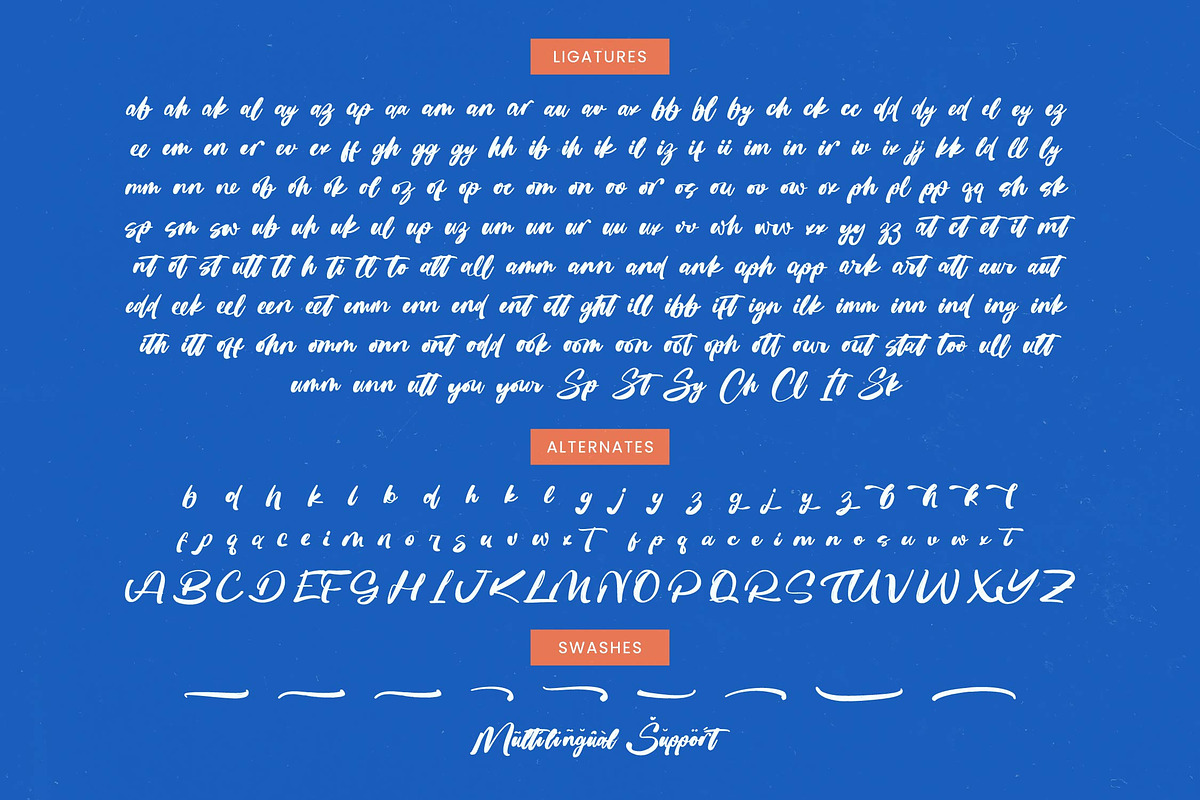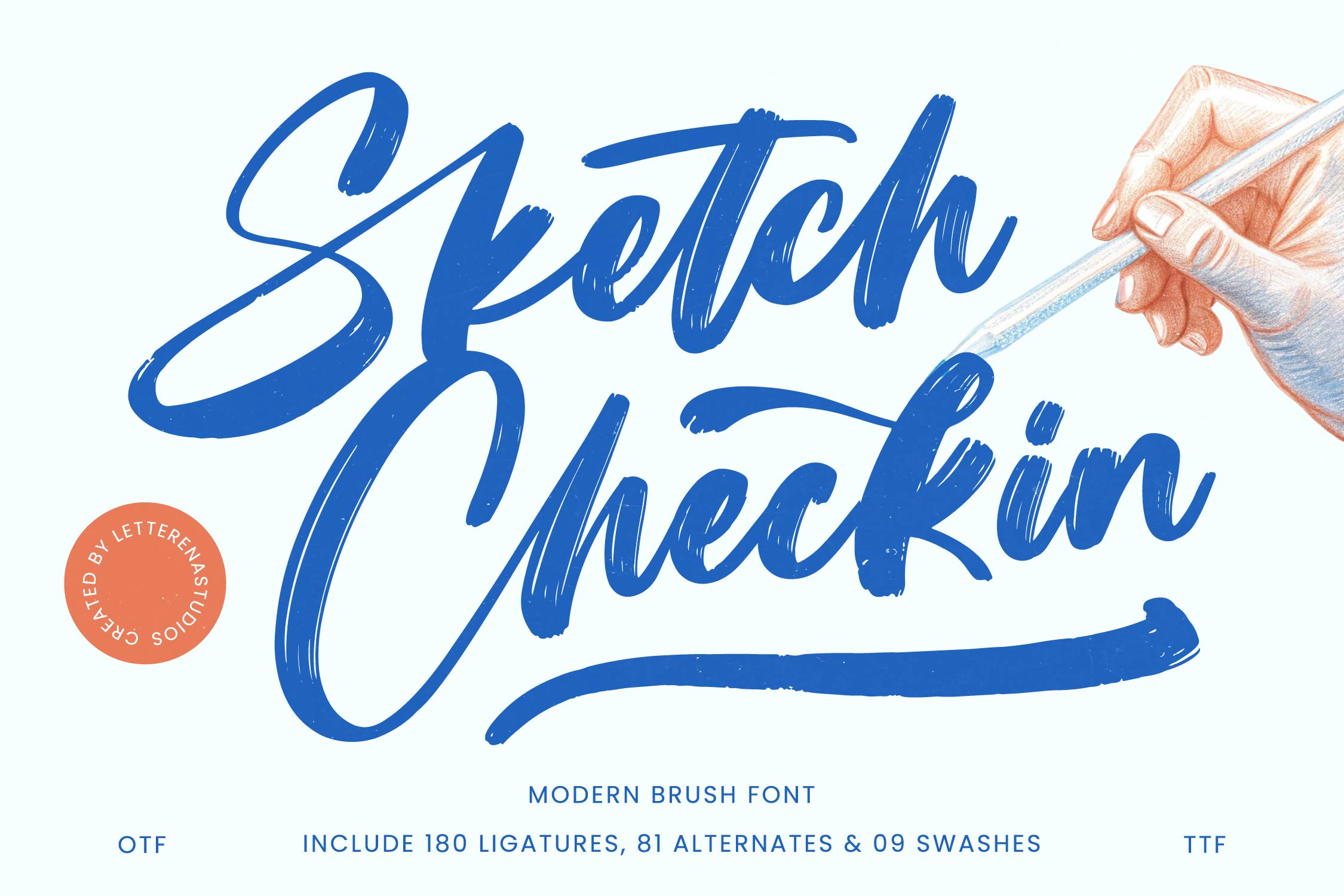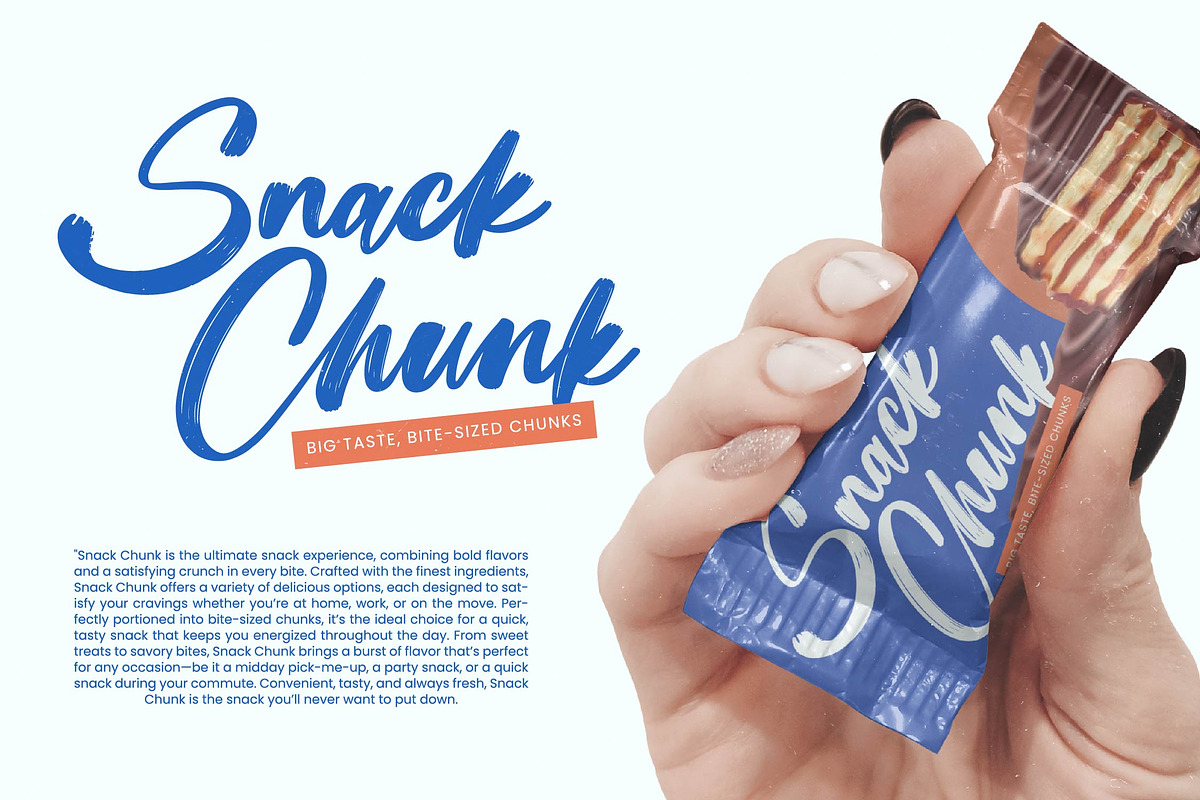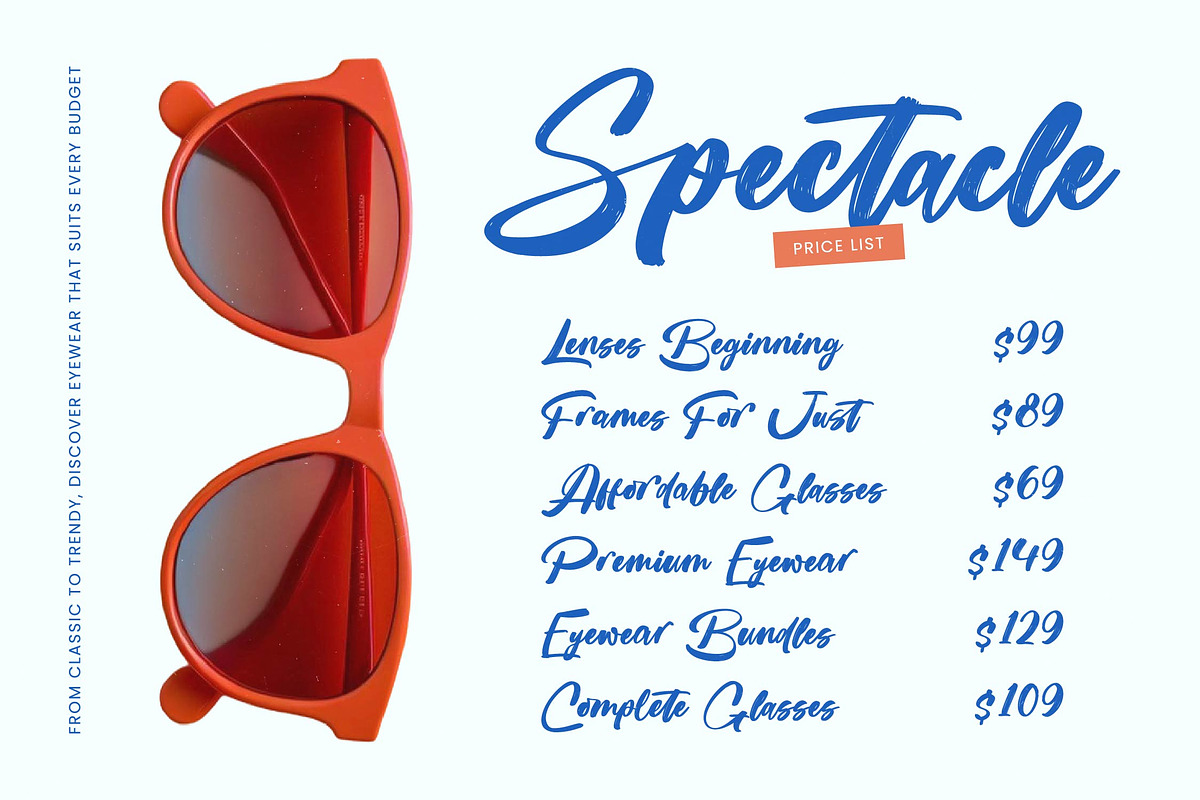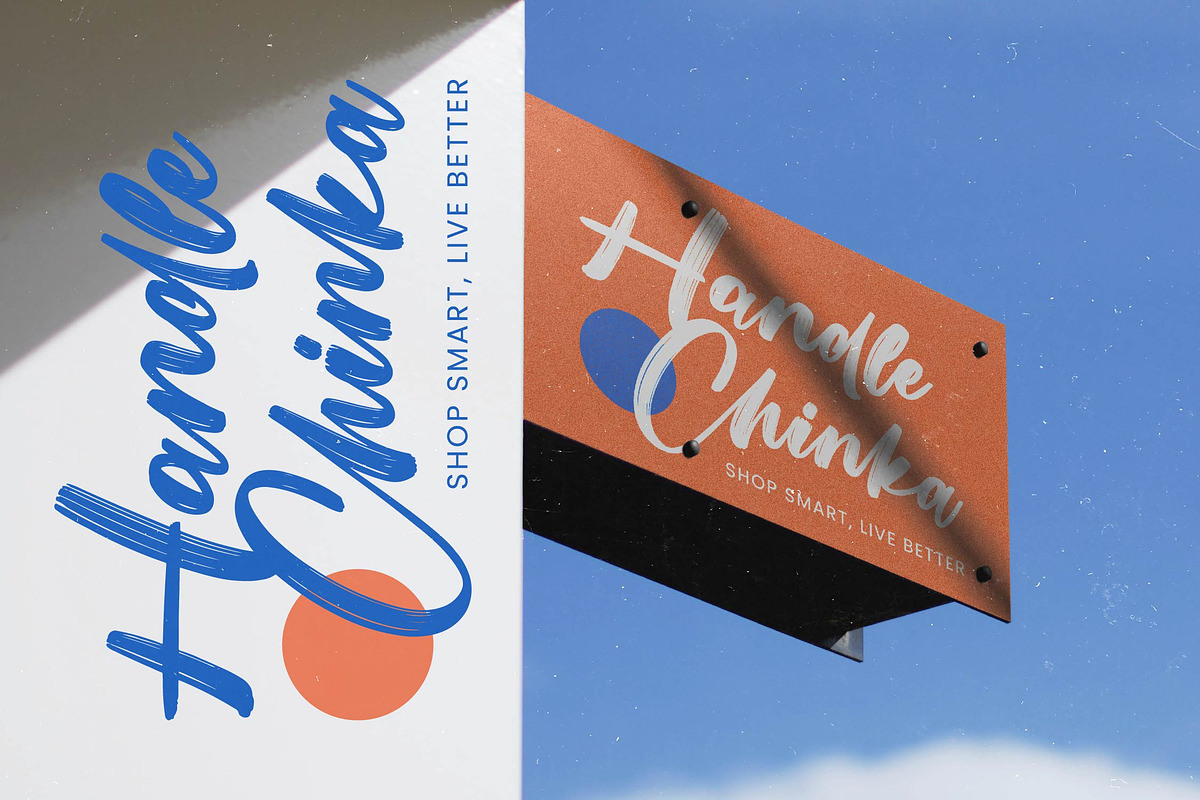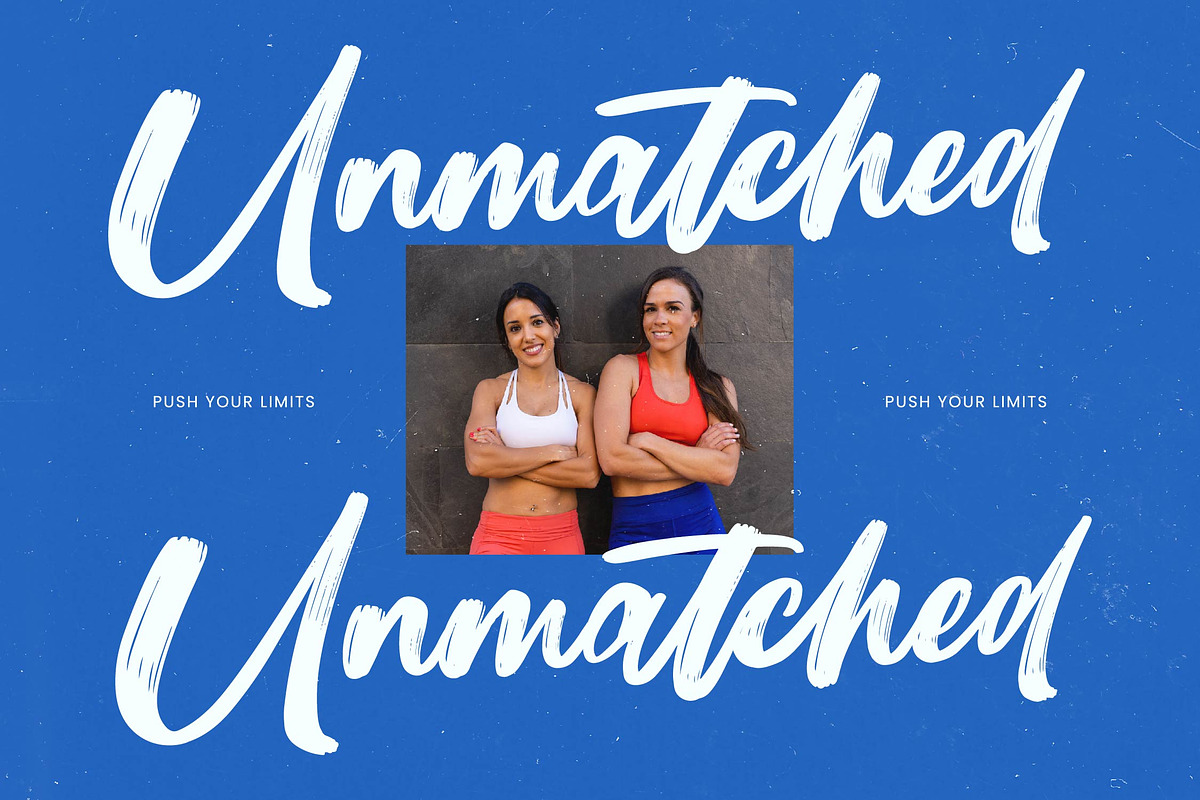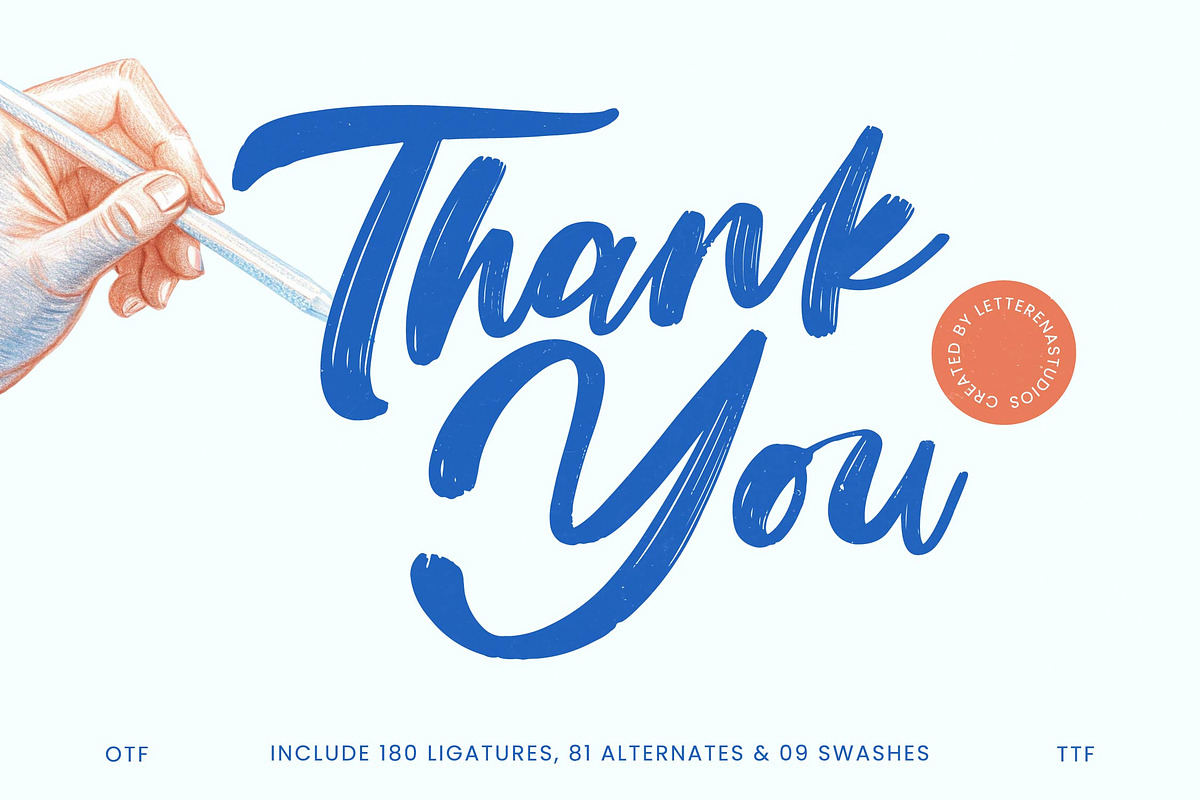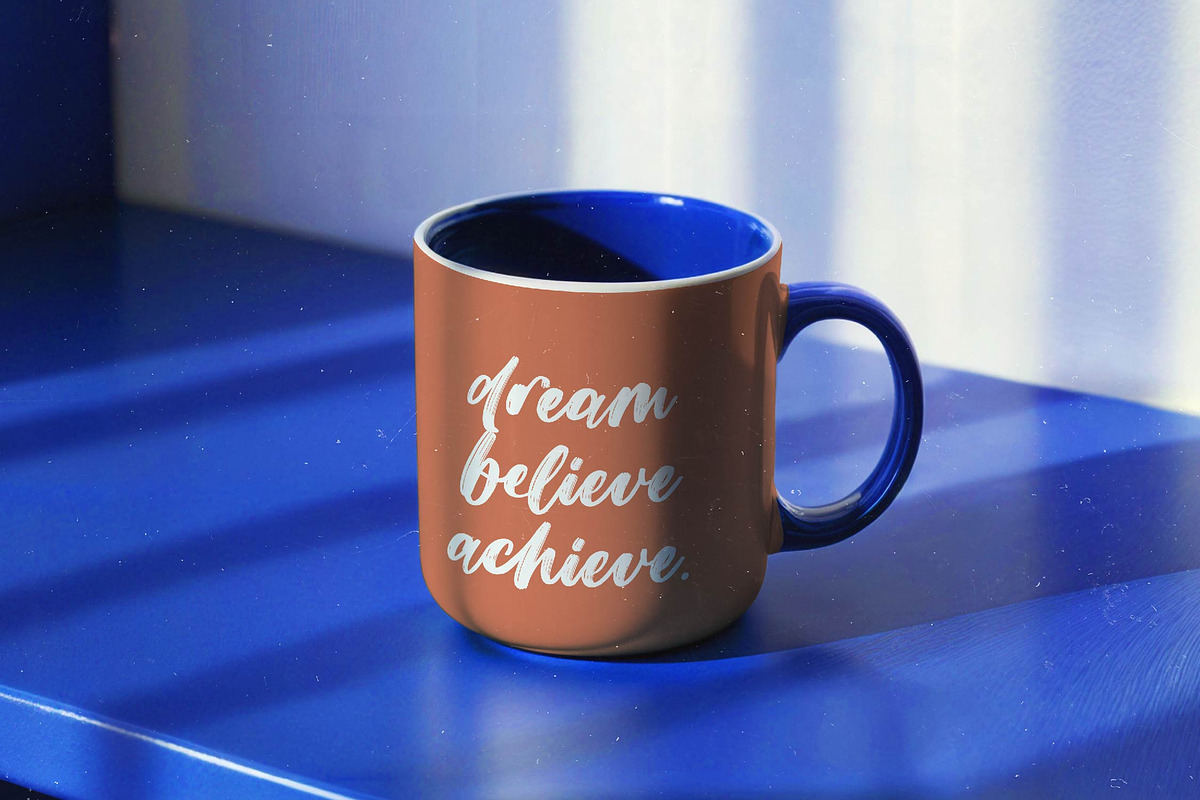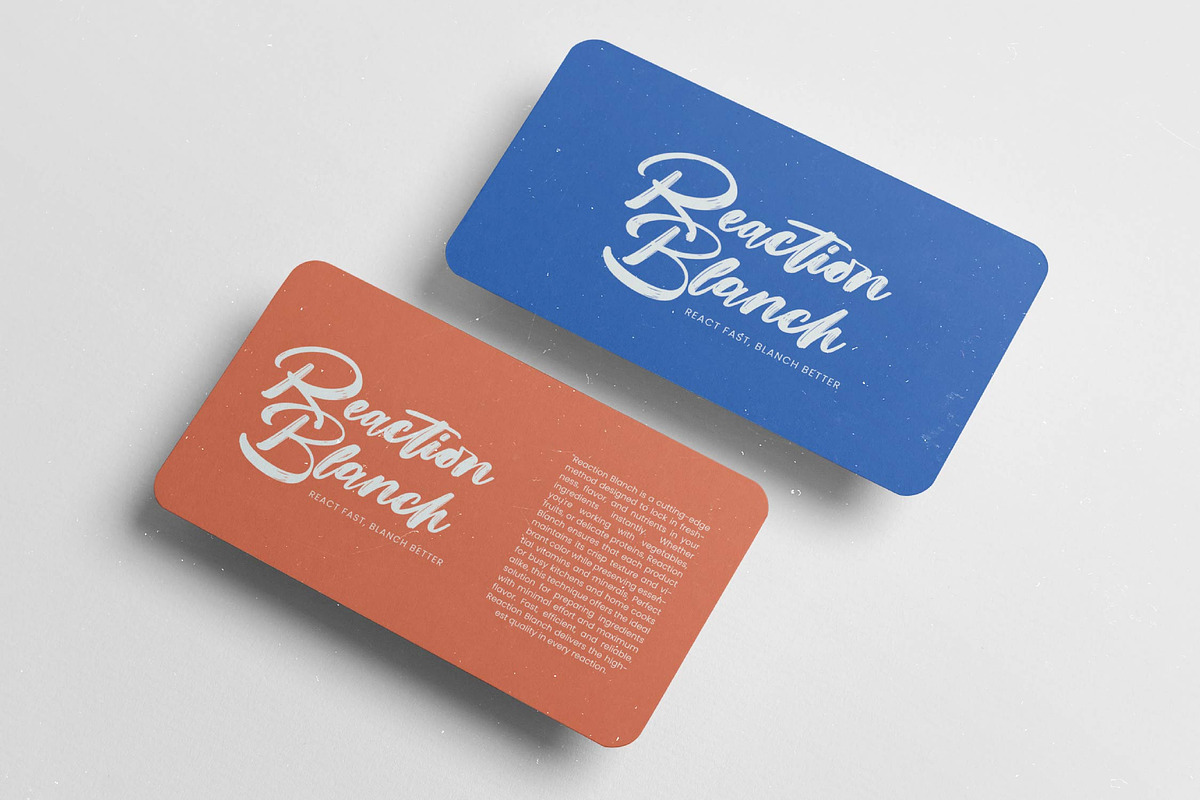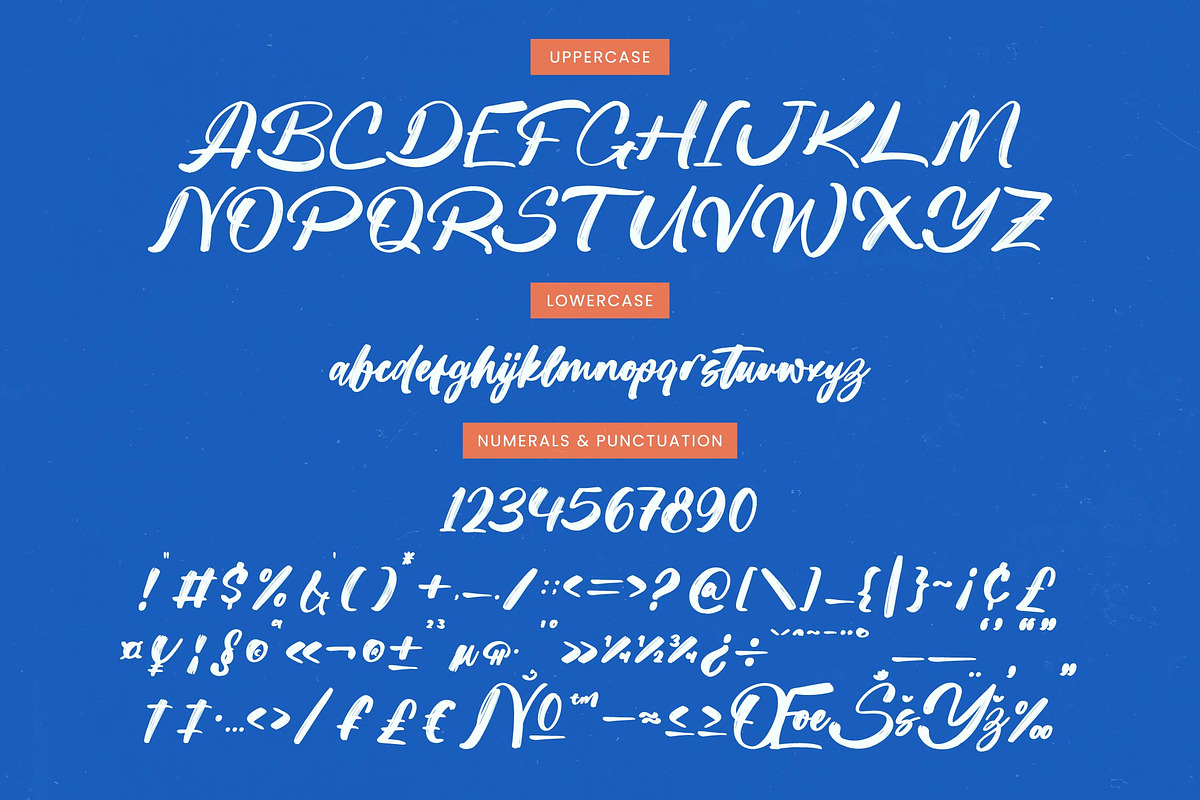
Sketch Checkin Modern Brush Font
Sketch Checkin - Modern Brush Font , from Letterena, is a Luxury Script font, suitable for any projects such as: logos, branding projects, homeware designs, product packaging, mugs, quotes, posters, shopping bags, t-shirts, book covers, name card, invitation cards, greeting cards, label, photography, watermark, special events, and all your other luxury and beautiful projects that need a Luxury Script taste.
- 180 Ligature 81 Alternate & 09 Swashes